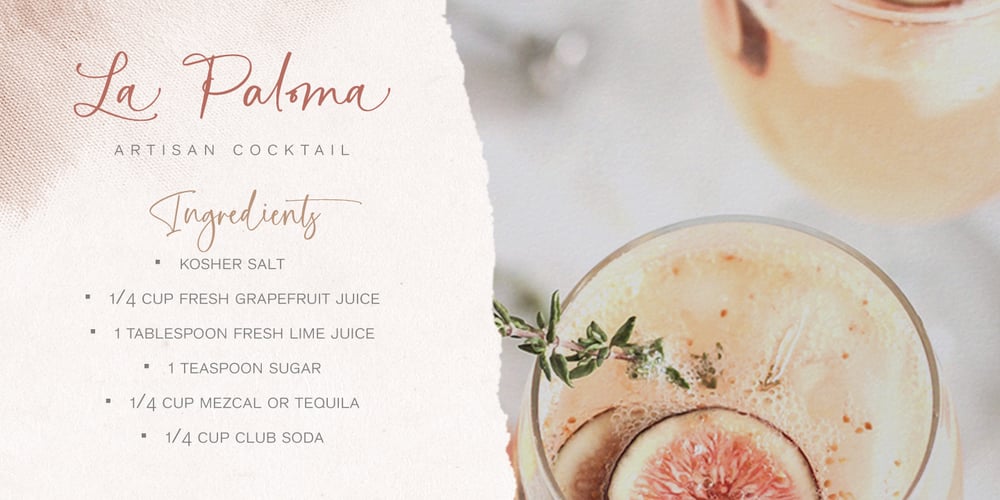
La Paloma Script Font Family was designed by Callie Hegstrom and published by Make Media Co. La Paloma Script contains 2 styles and family package options. Add a touch of elegance to your work with La Paloma Script – A clean, modern, hand-written typeface with over 170 Ligatures and Decorative End Characters to add a dash of luxury to any project. And if you’re looking for a lovely logo font, you just found it! La Paloma was designed with Branding in mind! But don’t stop there, use this chic type in headlines & titles, signage, greeting cards, invitations & more!